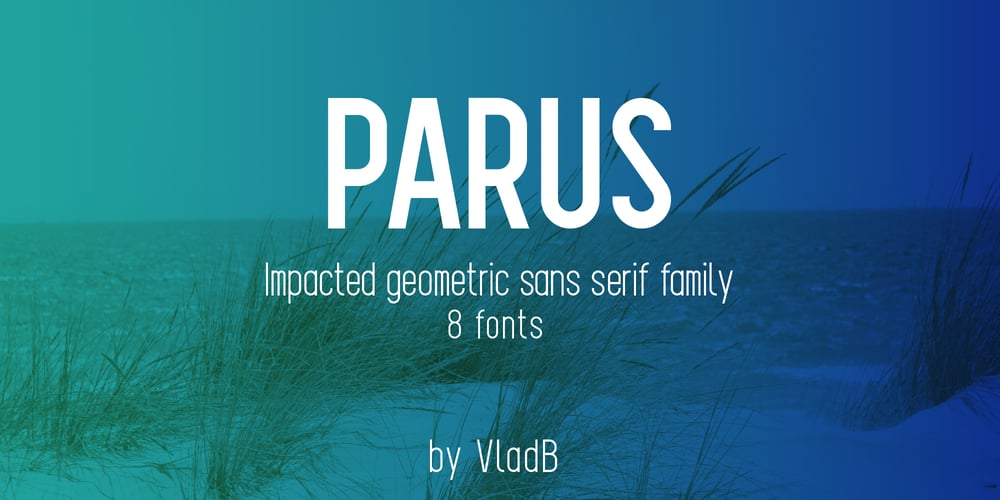
Parus Font Family was designed by Volodymyr Berla and published by VladB. Parus contains 8 styles and family package options. Parus is a impacted modern sans serif geometric font, includes upper and lower case characters, Latin, Cyrillic, Latin Eastern Europe, Turkish, Baltic and other.The Parus family consists of 8 fonts, divided into 2 subgroups (according to the type of style – St, Obl), and have the 4 types of thickness in each subgroup.Parus fonts will be useful in a word processing, developing a brand, creating posters and other graphic products.